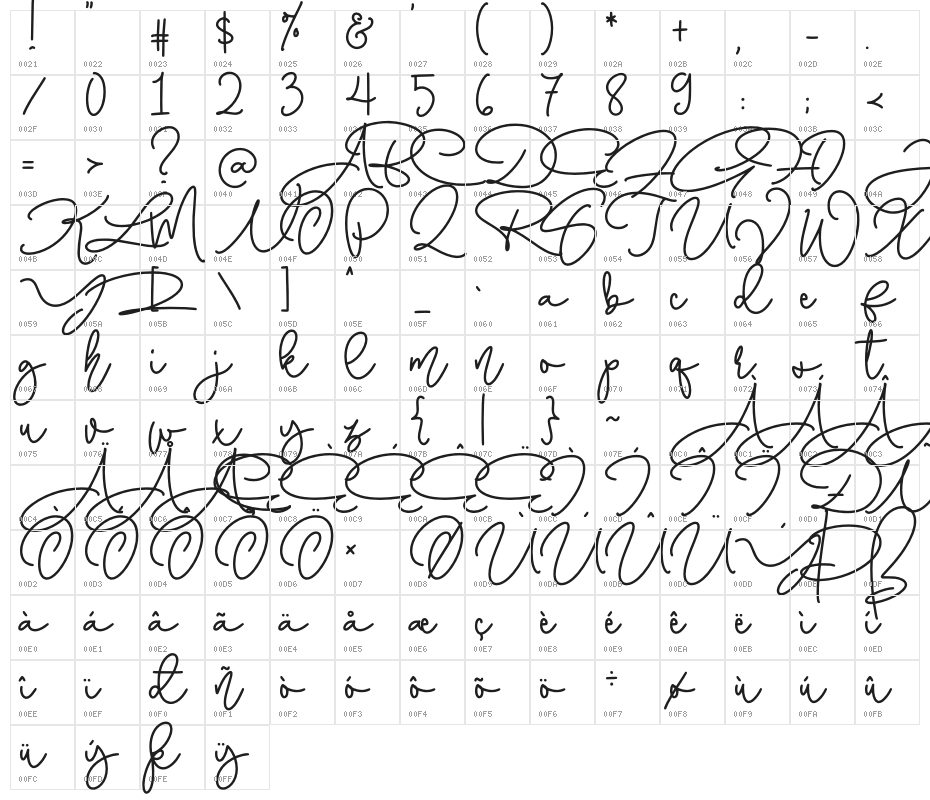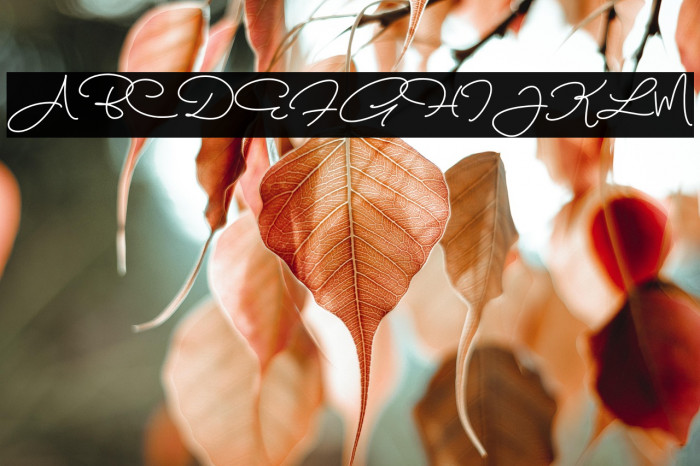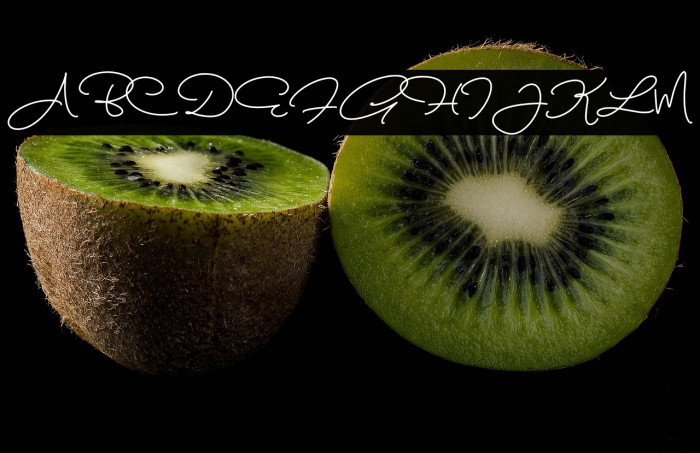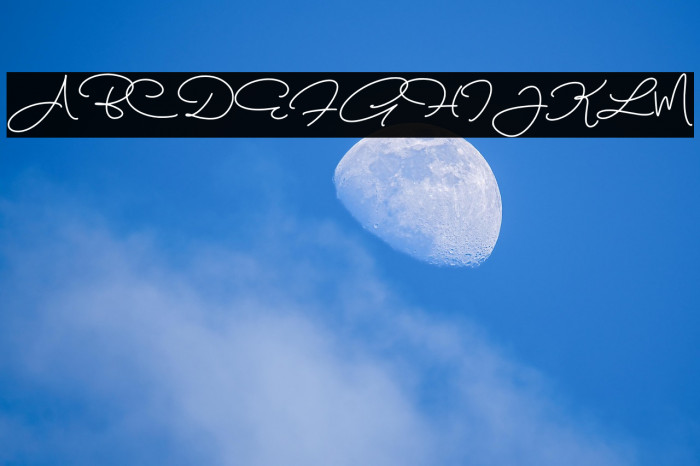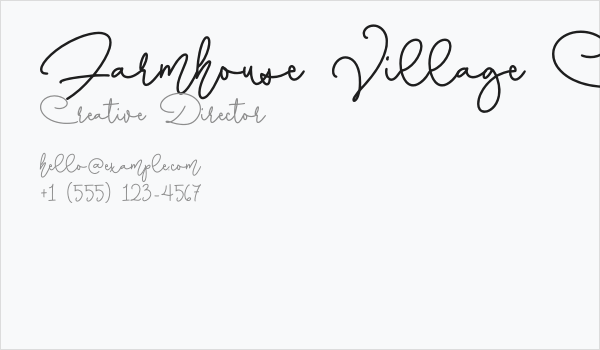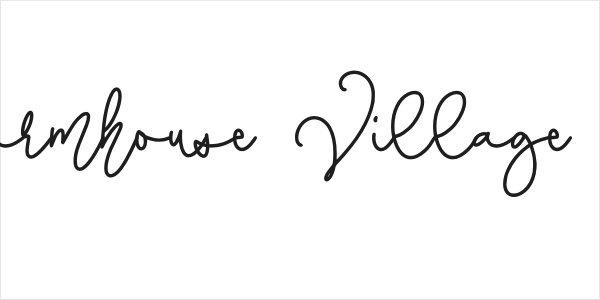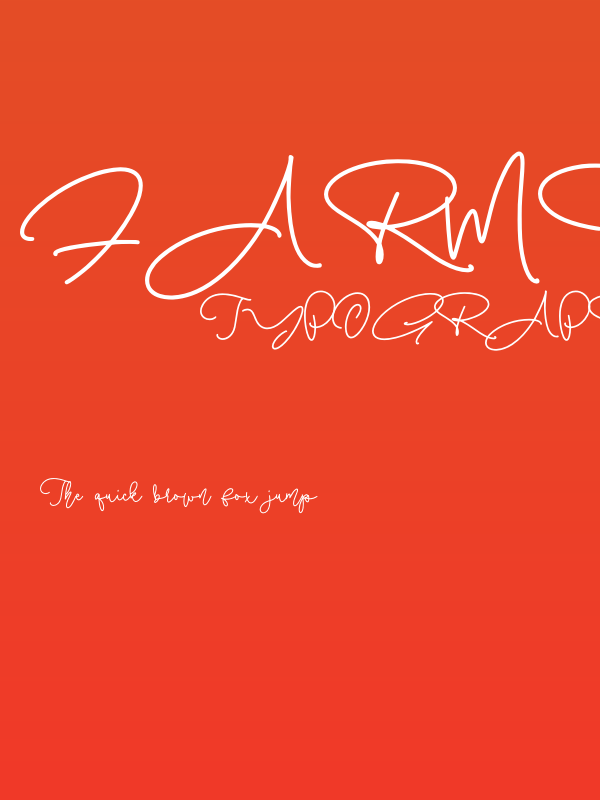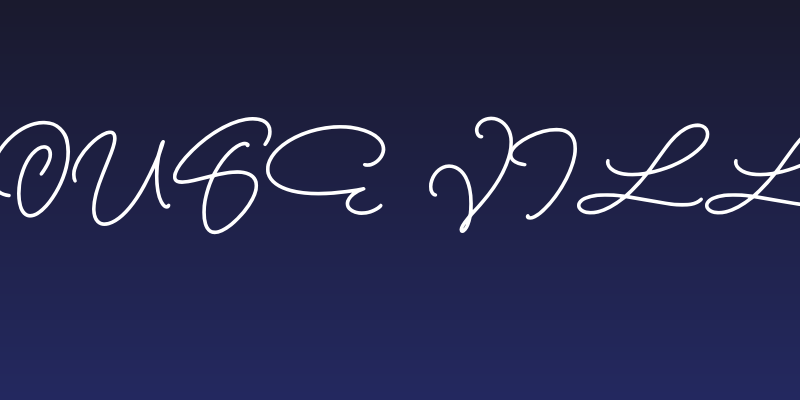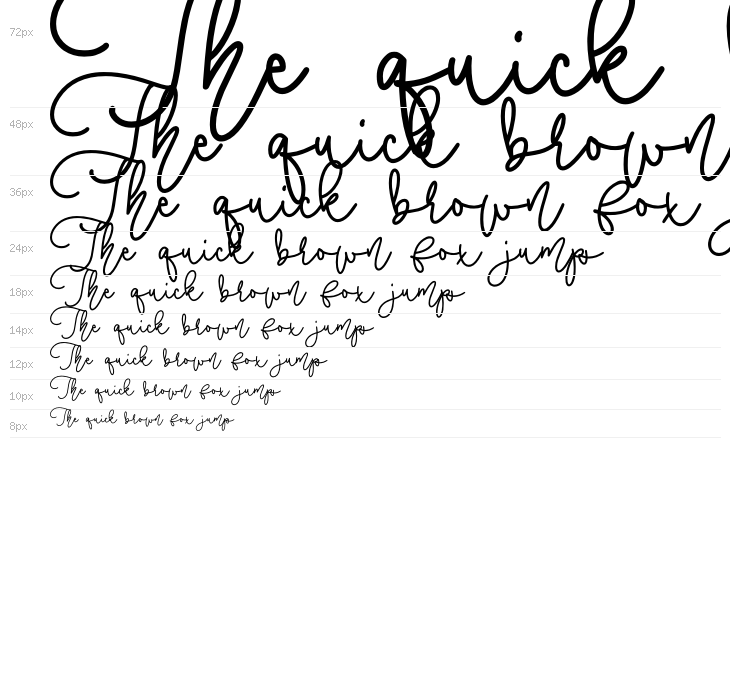
Farmhouse Village C Font
Farmhouse Village C Description
This font exudes a charming, handwritten style with a flowing, cursive design. The uppercase letters are elegantly connected, creating a sense of continuity and grace. The lowercase letters maintain a playful yet sophisticated appearance, with loops and curves that add a personal touch. Numbers and special characters are crafted with the same attention to detail, ensuring consistency across all elements. The overall look is both modern and nostalgic, making it versatile for various design needs.
| Use Case | Logos, Invitations, Social media posts |
| Proposed Projects | Ideal for wedding invitations, greeting cards, branding projects, and social media graphics. |